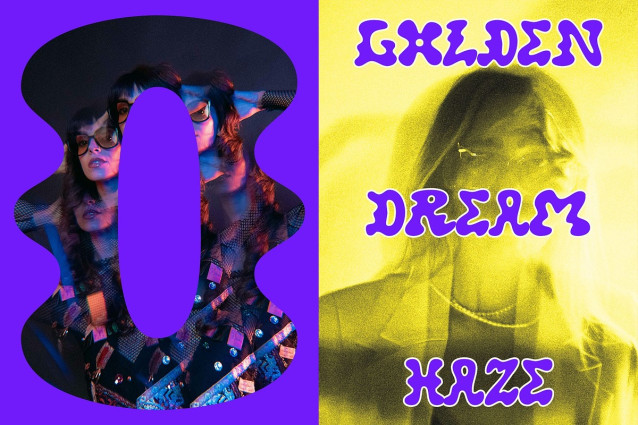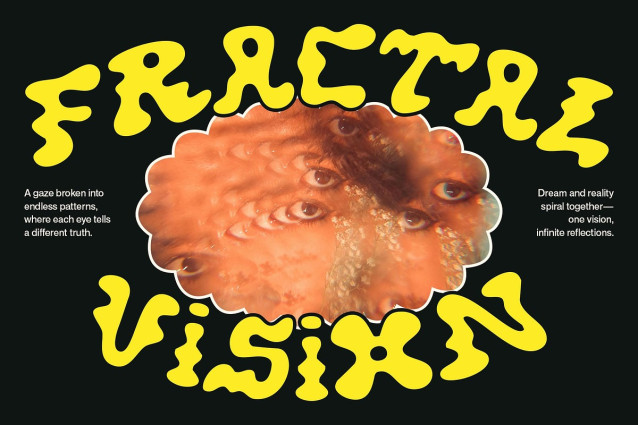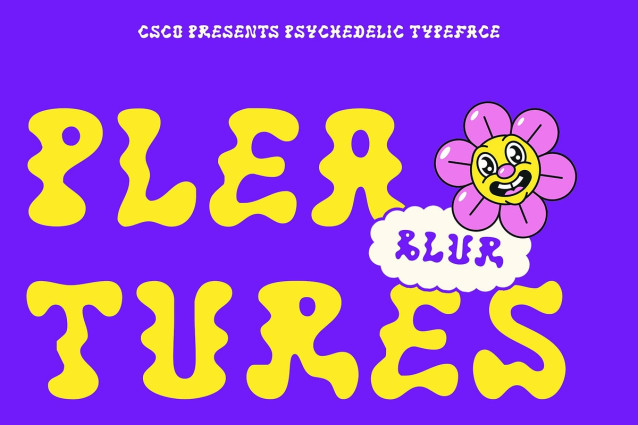
Pleatures Blur Font
Pleatures Blur Font is a psychedelic display font characterized by fluid, curvy, and rhythmically erratic letterforms. Drawing inspiration from the expressive spirit of the 1960s–70s counterculture, its unique shapes evoke motion and mood, creating a visual language that’s wild, artistic, and free.
Blur Effect for Hallucinatory Impact The font’s defining feature is its blur effect, which adds a dreamy, unstable quality to the letters—making them seem as though they float, vibrate, or shift. This visual distortion enhances its trippy aesthetic, giving designs a surreal, immersive feel perfect for catching the eye and altering perception.
Unconventional Boldness for Creative Expression Designed for music graphics, alternative posters, festival branding, and anything outside the mainstream, Pleatures Blur embraces eccentricity and visual experimentation. Its loud and flowing style makes it ideal for creatives who want to break norms and explore artistic freedom.
Perfect for Distinctive and Expressive Projects Pleatures Blur is made for designs that want to be loud, different, and emotionally expressive. Whether you’re working on an album cover, alternative fashion branding, or experimental visual content, this font delivers a high-impact look with depth and attitude. It’s a celebration of visual rebellion and bold storytelling, perfect for creatives who want to stand out by staying true to their wildest ideas.